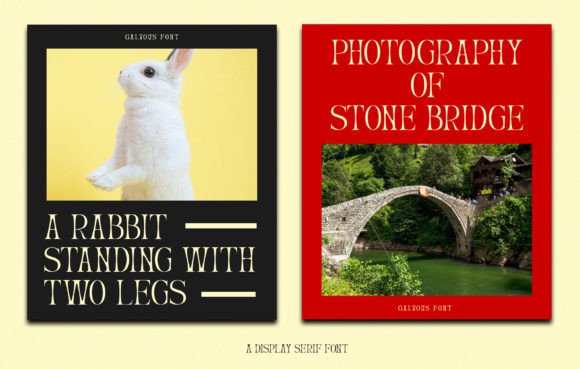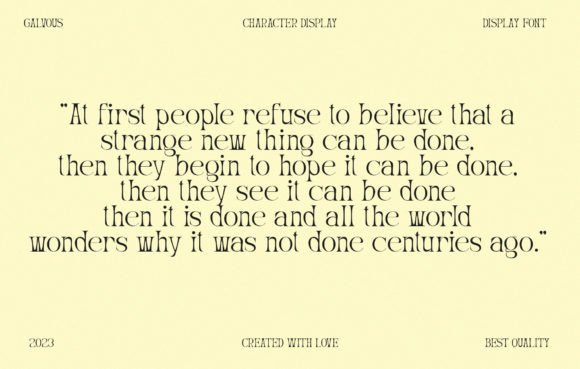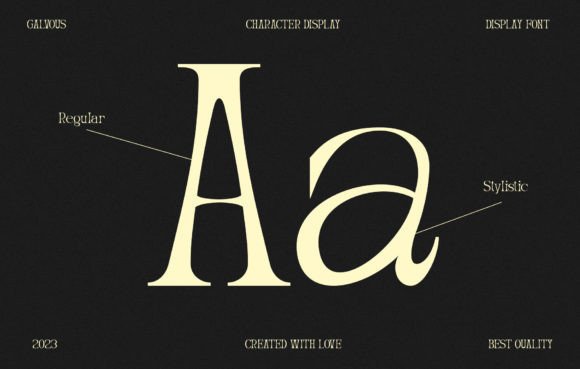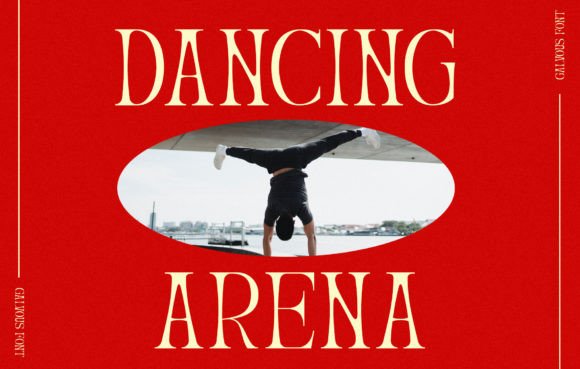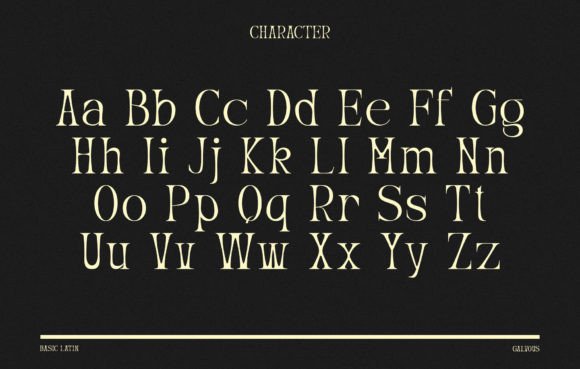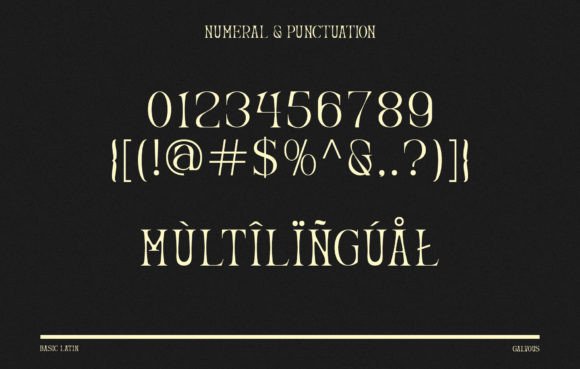
Discover the Elegance of Galvous Font: A Timeless Choice for Designers and Crafters
If you’re looking for a font that exudes elegance and sophistication, look no further than Galvous. With its classic lines and ornate serifs, Galvous adds a touch of refinement to any design project. From wedding invitations to book covers, it is a versatile choice that can be used in a variety of contexts to convey a sense of timelessness and tradition.
The Characteristics of Galvous Font
Galvous font is a serif typeface that features intricate details and ornate flourishes. Its classic lines and elegant curves make it a perfect choice for designs that require a touch of sophistication. The font’s serifs are carefully crafted to add a sense of refinement and luxury to any text, making it ideal for high-end designs.
Uses of Galvous Font
Galvous font is a versatile choice that can be used in a variety of contexts. Here are some of the most popular uses of this elegant font:
- Wedding Invitations: Galvous font is a popular choice for wedding invitations, as it adds a touch of elegance and sophistication to the design. Its classic lines and ornate serifs make it perfect for formal wedding invitations, save-the-date cards, and other wedding-related designs.
- Book Covers: Galvous font is also a great choice for book covers, particularly for fiction and non-fiction books that require a touch of elegance. Its serif design makes it easy to read, even in small font sizes.
- Branding and Packaging: Galvous font can be used for branding and packaging designs that require a touch of sophistication. Its elegant design makes it perfect for luxury brands, high-end products, and premium services.
- Stationery and Greeting Cards: Galvous font can also be used for stationery and greeting cards, such as thank-you cards, birthday cards, and holiday cards. Its classic design makes it a great choice for formal and informal occasions.
Benefits of Using Galvous Font
There are several benefits to using Galvous font in your design projects. Here are some of the most significant advantages:
- Elegance and Sophistication: Galvous font adds a touch of elegance and sophistication to any design project. Its classic lines and ornate serifs make it perfect for designs that require a sense of refinement and luxury.
- Versatility: Galvous font is a versatile choice that can be used in a variety of contexts. Its serif design makes it easy to read, even in small font sizes.
- Timelessness: Galvous font has a timeless quality that makes it a great choice for designs that require a sense of tradition and heritage. Its classic design ensures that it will remain relevant for years to come.
Tips for Using Galvous Font
Here are some tips for using Galvous font in your design projects:
- Use it sparingly: Galvous font is a elegant and sophisticated choice, but it can be overwhelming if used excessively. Use it sparingly to add a touch of refinement to your design.
- Pair it with a sans-serif font: Galvous font pairs well with sans-serif fonts, such as Arial or Helvetica. Use a sans-serif font for body text and Galvous font for headings and titles.
- Adjust the font size: Galvous font can be used in a variety of font sizes, but it’s essential to adjust the font size to suit the context. Use a larger font size for headings and titles, and a smaller font size for body text.
| Author | Ceeskiiw |
Galvous font is a timeless and elegant choice that can add a touch of sophistication to any design project. Its classic lines and ornate serifs make it perfect for designs that require a sense of refinement and luxury. With its versatility and timeless quality, Galvous font is a great choice for designers and crafters who want to create high-end designs that exude elegance and sophistication.
Whether you’re designing wedding invitations, book covers, or branding and packaging materials, Galvous font is a great choice. Its classic design ensures that it will remain relevant for years to come, making it a valuable addition to your font collection.